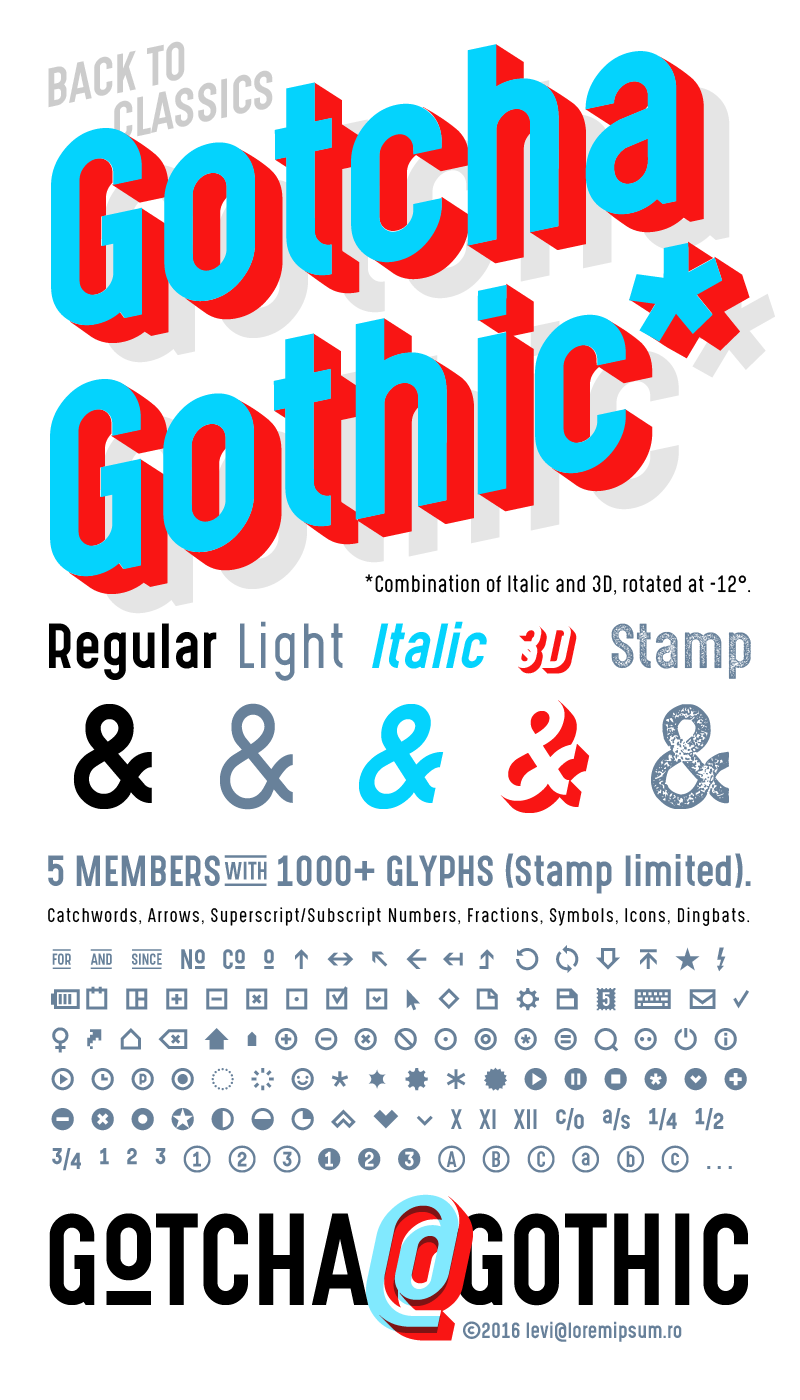
Font name: | Gotcha Gothic |
Author: | Levi Szekeres |
Note by Levi Szekeres | |
A personal approach to classics, Gotcha Gothic was created to have an extended option for headings, with lowercases, accents and iconography, not necessarily for web. Optical adjustments and graphic effects were reduced to minimum for a block, bold appearance (more of an Impact than a Franklin). The 3D version should be used together with the Italic, to cover potential overlap of letters and keep a true effect. 3D with a wide kerning may not need the Italic though. The Stamp Basic has a reduced amount of characters just to keep a smaller file size, the extended version has all the glyphs the Regular has, but it gets to an excessively large size for a font. |